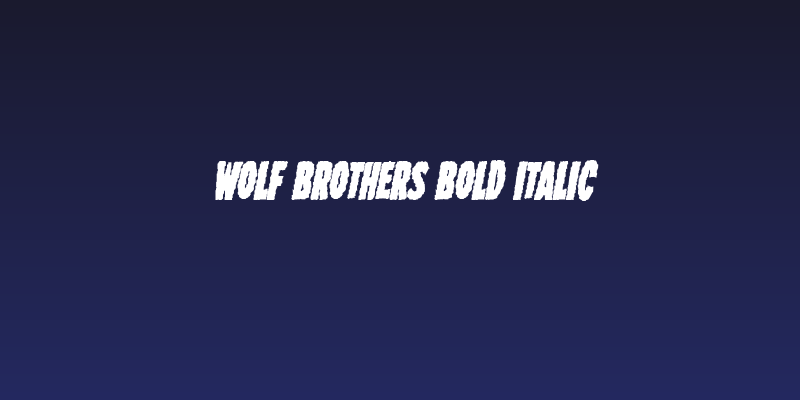
Wolf Brothers Bold Italic Font
Wolf Brothers Bold Italic Description
This font exudes a bold and dynamic presence, characterized by its thick, slanted strokes that convey a sense of movement and energy. The letters are heavily weighted, giving them a strong visual impact, while the italicized style adds a touch of fluidity and speed. The overall appearance is rugged and slightly distressed, making it ideal for projects that require a bold statement. The characters are tightly spaced, enhancing the compact and powerful look. This font is perfect for grabbing attention and making a memorable impression.
| Overall Style | Dynamic and Rugged |
| Proposed Projects | Ideal for sports branding, action movie posters, and dynamic event promotions. |